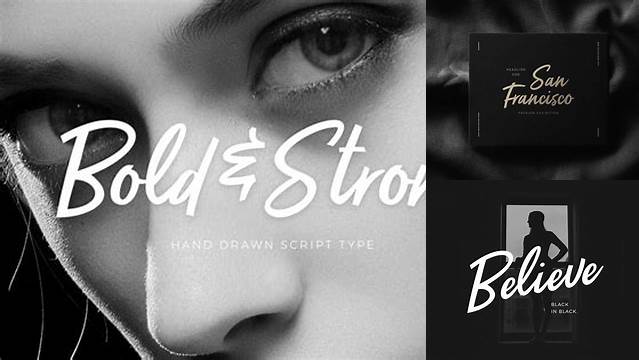
Randrake Font Script: Free Download & Creative Uses
Hey guys! Ready to dive into the world of stunning typography? Today, we're taking a closer look at the Randrake font script – a beautiful and versatile typeface that's perfect for a wide range of creative projects. And the best part? You can snag the Randrake font script free download! Let's explore everything you need to know about this amazing font and how you can use it to elevate your designs.
H2: What Makes Randrake Font Script So Special?
Alright, so what’s the deal with the Randrake font script, and why is everyone raving about it? Well, for starters, it's got that elegant, flowing script style that just screams sophistication. Think about it: it's perfect for anything from wedding invitations and branding to social media graphics and even website headers. Randrake font script is known for its graceful curves and clean lines, giving it a modern yet timeless feel. It's the kind of font that instantly adds a touch of class and personality to any project. But it's not just about looks, though it's definitely got those in spades. The readability is also top-notch. Even with its flourishes and stylistic elements, it remains easy to read, making sure your message gets across loud and clear. This balance between style and function is what makes Randrake so popular. It allows designers and creatives to add a unique touch without sacrificing the clarity of the content. It is also very versatile. Whether you’re going for a romantic vibe or a more contemporary feel, Randrake can adapt to it all. It’s like having a Swiss Army knife in your font library – ready for any design challenge! It supports a wide range of languages, making it a great choice for international projects. So, if you're looking for a font that's both beautiful and practical, the Randrake font script free download is definitely worth checking out. The key is in its ability to enhance the aesthetic appeal of your designs. The versatility means it can work in a multitude of creative context, making it a must-have resource for designers. This is something that sets Randrake apart from many other fonts in the script category.